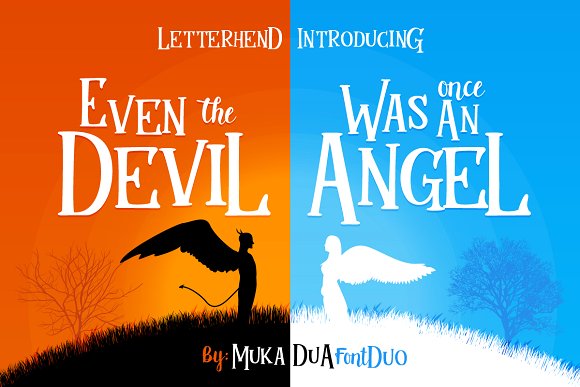
Mukadua Font
Mukadua Font is perfect for cultural festival posters, world music album covers, international restaurant branding, travel agency materials, ethnic clothing boutiques, art gallery exhibitions, multicultural event signage, global nonprofit organizations, international food packaging, and diverse community center branding. This distinctive typeface works beautifully for language learning materials, cultural exchange programs, world heritage site documentation, international wedding invitations, ethnic jewelry branding, traditional craft workshops, and cross-cultural marketing campaigns.
What makes Mukadua Font so exciting is its unique ability to bridge traditional cultural aesthetics with contemporary design sensibilities. The font captures the essence of global typography traditions while maintaining modern functionality and digital compatibility. Each letterform reflects careful attention to cultural authenticity, creating visual connections that resonate across diverse audiences and communities. The distinctive character shapes tell stories of heritage and tradition, making it an invaluable tool for brands seeking to communicate cultural appreciation and global connectivity while maintaining professional appeal.
The Mukadua Font family includes multiple weights and stylistic variations that enhance its versatility across different design applications. The collection features regular, medium, and bold weights, each maintaining the font's cultural character while offering flexibility for hierarchical text layouts. Additional elements include decorative flourishes, cultural symbols, and extended character sets that support multiple languages and regional variations. Special ligatures and alternates provide designers with creative options to customize their typography and create authentic cultural expressions.
Whether you're designing for international brands or creating culturally-inspired marketing materials, Mukadua Font Free Download provides the perfect solution for projects requiring authentic global appeal. This remarkable typeface transforms ordinary text into culturally-rich visual statements that honor tradition while embracing modernity. The font's distinctive personality makes it ideal for organizations and brands that celebrate diversity, cultural heritage, and international connectivity, ensuring your designs communicate respect and appreciation for global communities while maintaining excellent readability and professional standards.